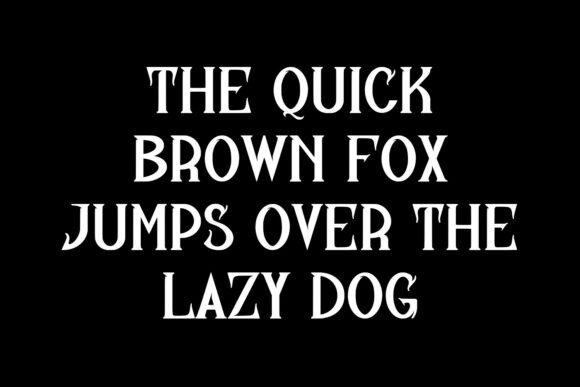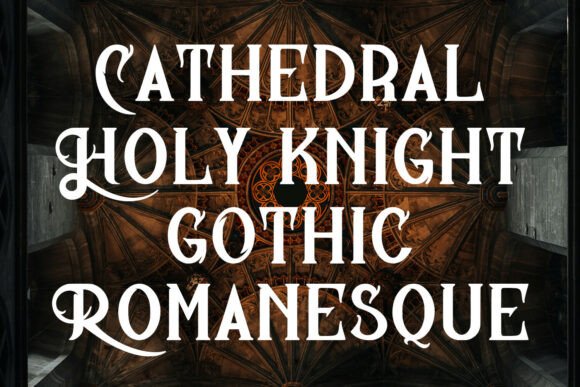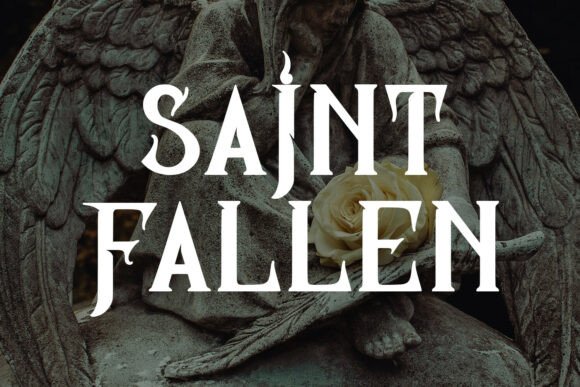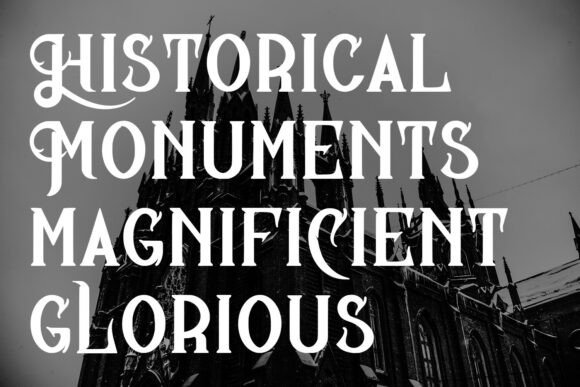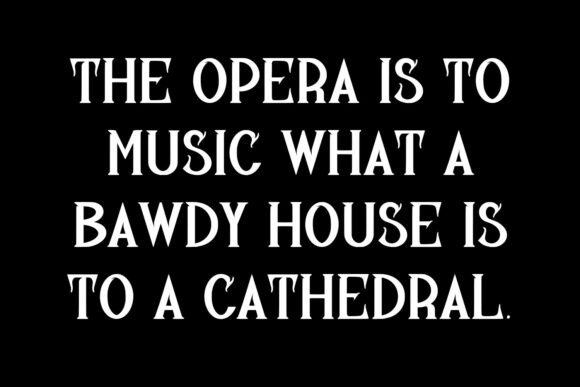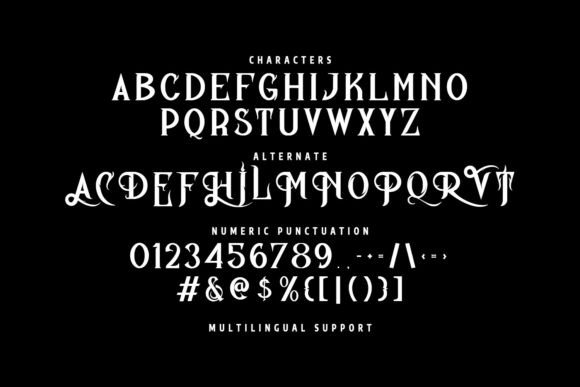
Unlock the Power of Elegance with Hemellot Font
Have you ever been in the middle of a design project, and suddenly, you’re struck by a creative block? You’re not alone! I recall a recent experience where I was working on a luxury branding project, and I just couldn’t find the right font to capture the essence of the brand. That’s when I stumbled upon Hemellot, a masterfully crafted display serif font that instantly elevated my design game.
A Masterful Blend of Classic and Modern
Designed by Maulana Creative, Hemellot seamlessly blends classical Victorian aesthetics with a bold, modern touch. This typeface features unique swashes and sharp serifs that command attention and exude a sense of luxury and timeless heritage. Whether you’re working on high-end branding, vintage-inspired logos, editorial layouts, book covers, or sophisticated wedding invitations, Hemellot is the perfect choice.
An Honest Review of Hemellot
What I Love About Hemellot ✨
- ✅ Elegant and sophisticated design that’s perfect for luxury branding
- ✅ Unique swashes and sharp serifs that add a touch of modernity
- ✅ Highly versatile and can be used for various design projects
- ✅ Strong character and intricate details that make it stand out
- ⚠️ May not be suitable for body text due to its bold and ornate design
- ⚠️ Some users may find the font a bit challenging to read at smaller sizes
The Story Behind Hemellot
According to Maulana Creative, Hemellot was inspired by the elegance of Victorian-era typography and the boldness of modern design. The font’s creator aimed to craft a typeface that would evoke a sense of luxury, sophistication, and timeless heritage. With Hemellot, designers can add a touch of classic elegance to their projects while still conveying a sense of modernity.
Q: What makes Hemellot unique?
A: Hemellot’s unique blend of classical Victorian aesthetics and modern design elements, along with its sharp serifs and swashes, make it a standout font.
Q: Can I use Hemellot for body text?
A: While Hemellot is a beautiful font, it may not be the best choice for body text due to its bold and ornate design. It’s better suited for headings, titles, and emphasis text.
Q: Is Hemellot suitable for digital use?
A: Yes, Hemellot is designed to be versatile and can be used for both print and digital projects. However, its bold design may require adjustments for optimal readability on digital screens.